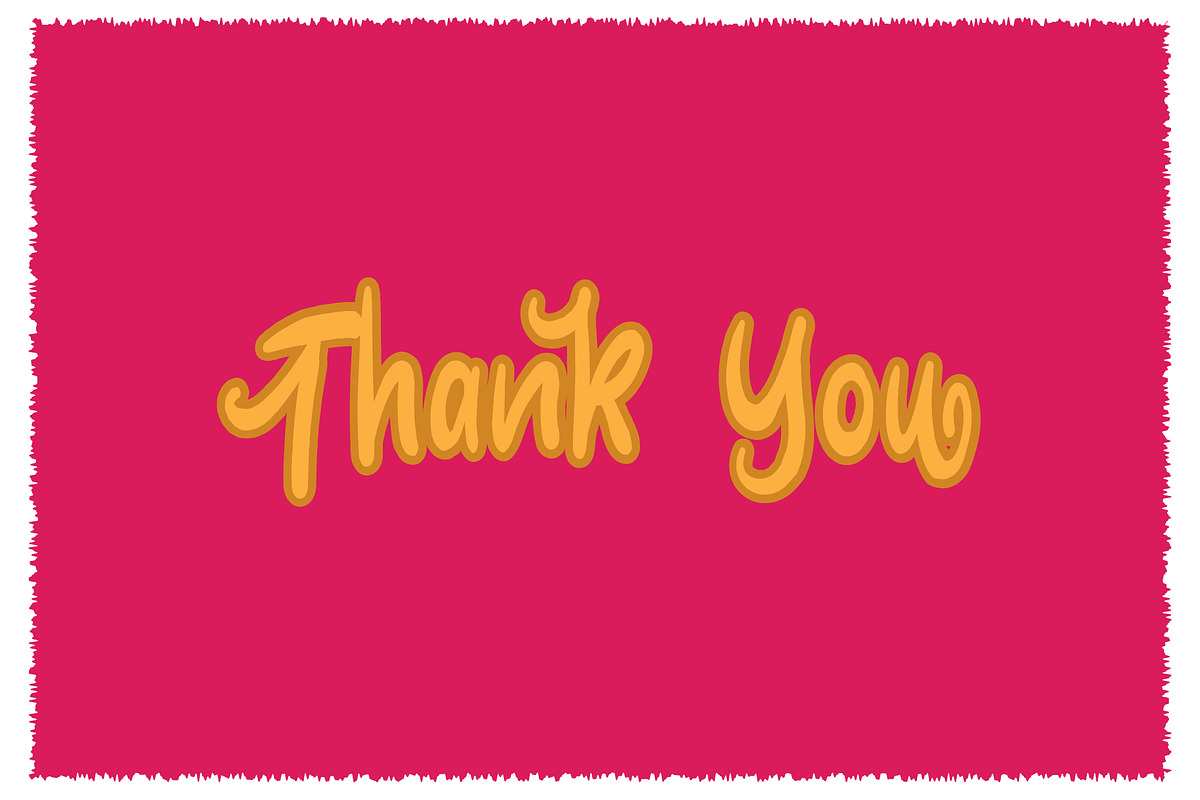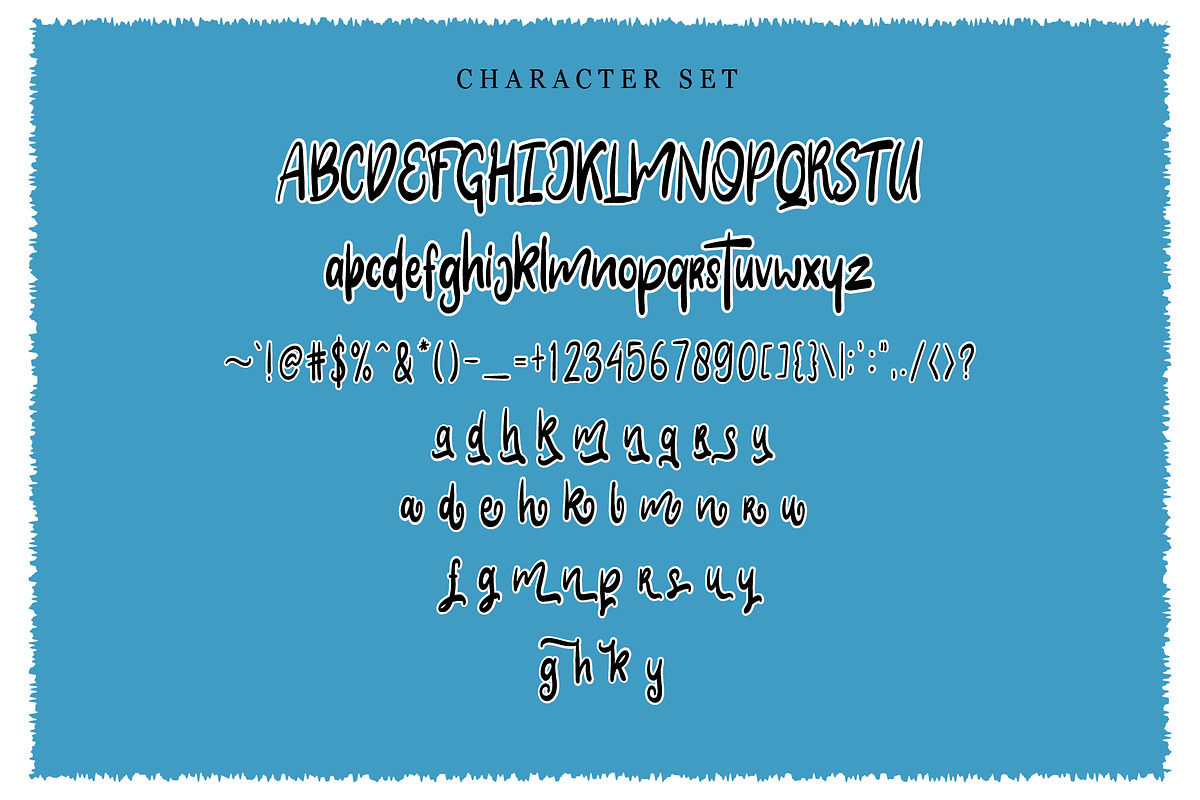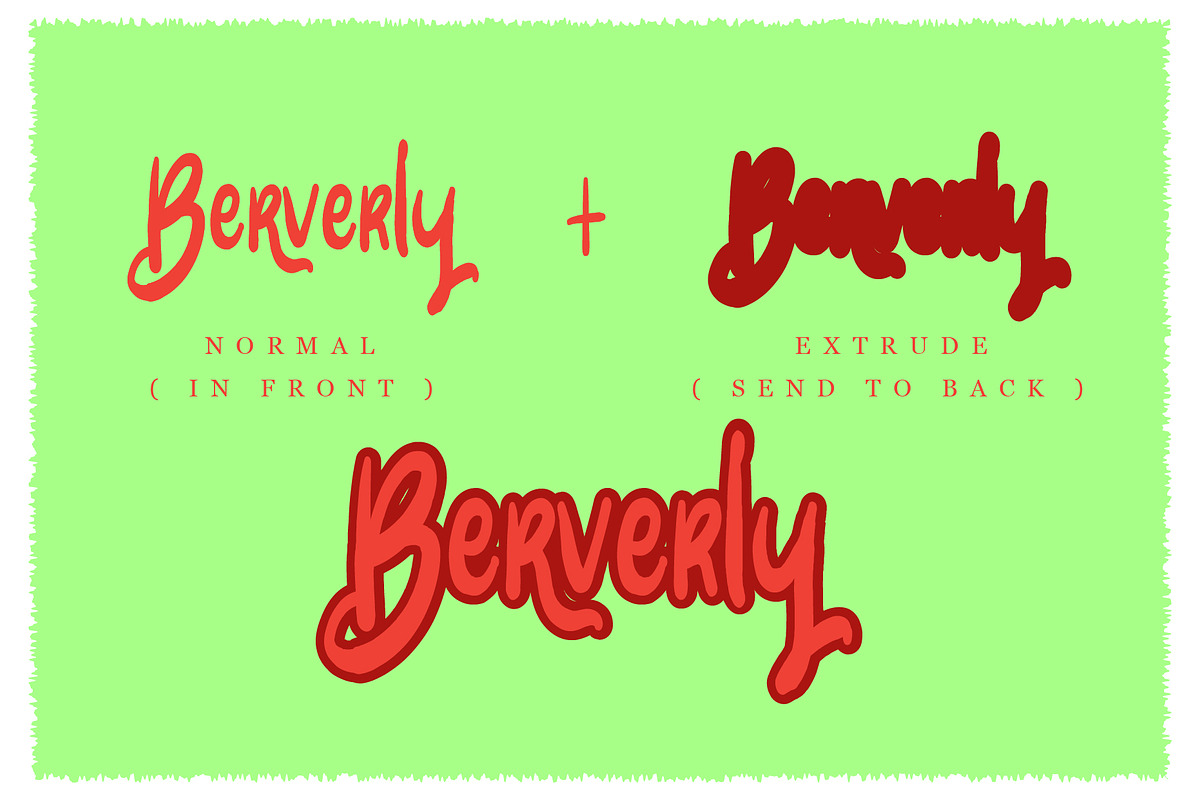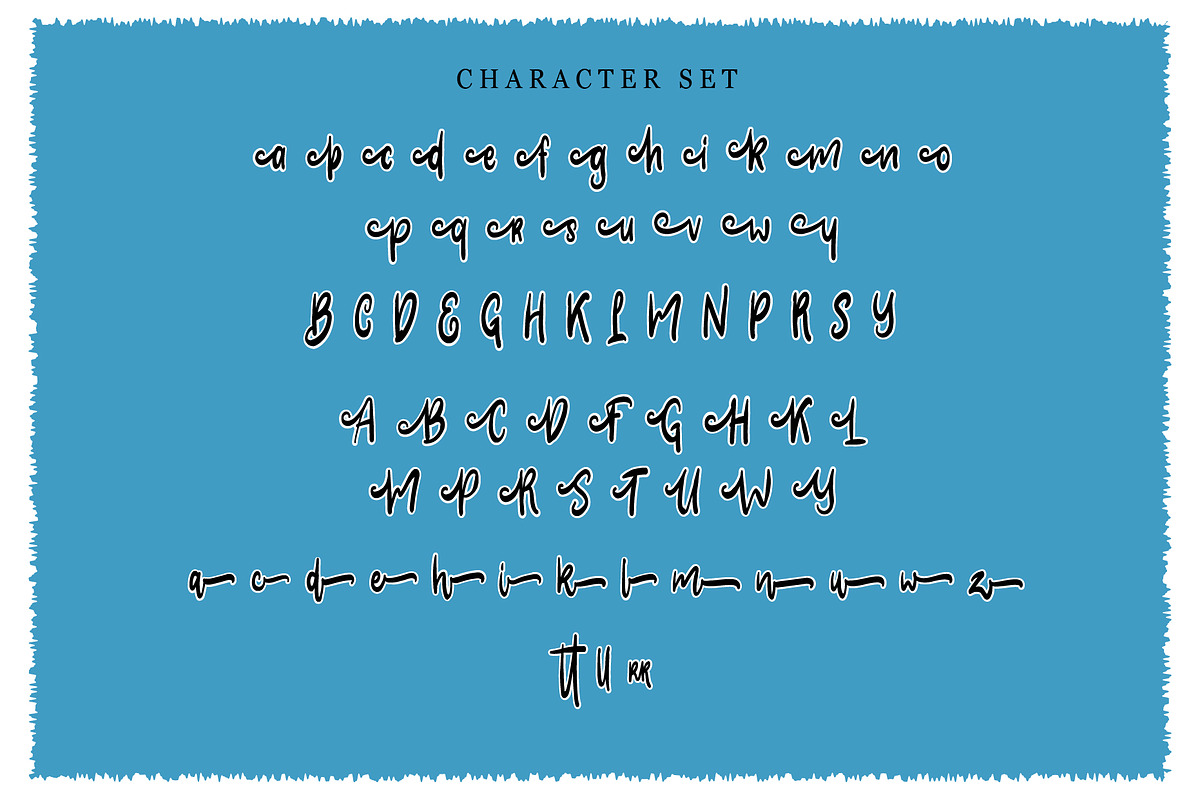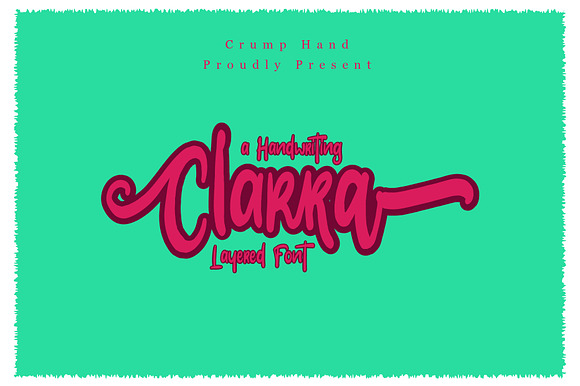
Clarra Layered Fonts
Clarra a Handwriting Layered Font
Why Clarra Layered Fonts is worth a look
Clarra Layered Fonts by Crump Hand fits naturally into Branding, posters, packaging, typography.